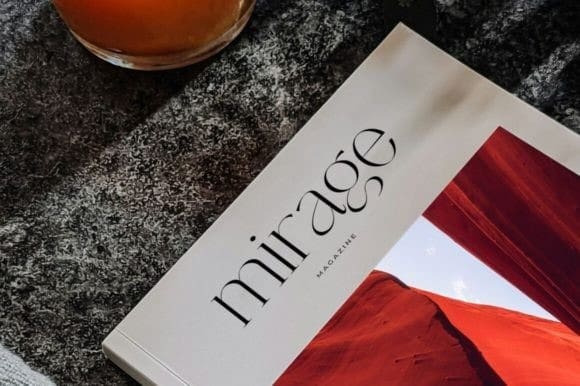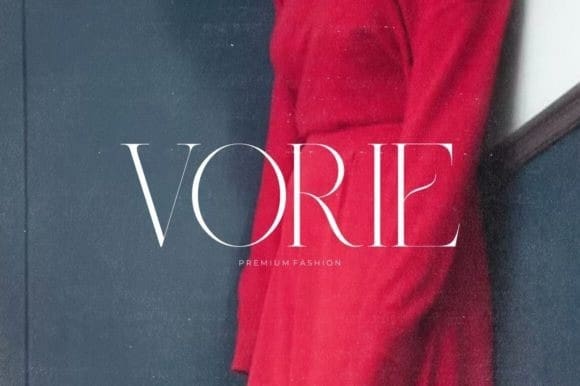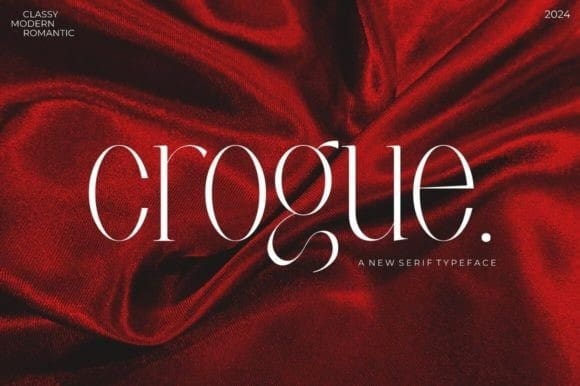
Crogue Font
Crogue Font is a stylish serif font exuding elegance and sophistication. Its sleek lines and balanced proportions give it a timeless appeal suitable for various design projects. From editorial layouts to branding materials, Crogue adds a touch of refinement and class, making every text stand out with grace.